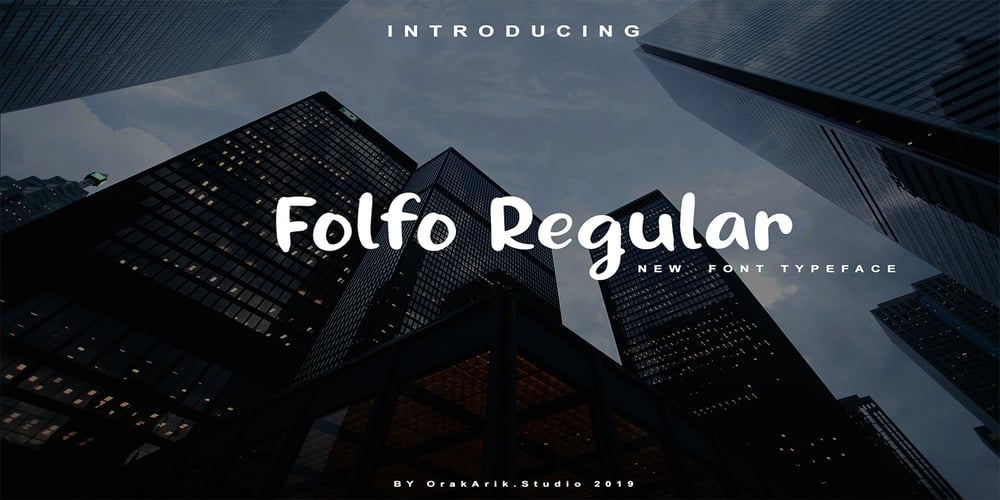
Folfo Font Family was designed by Koi and published by OrakArik. Folfo contains 1 styles and family package options. Folfo is a modern font with a casual handwritten and funny feel. It is suitable for use for your products, book covers, branding for your company, and also for setting text.